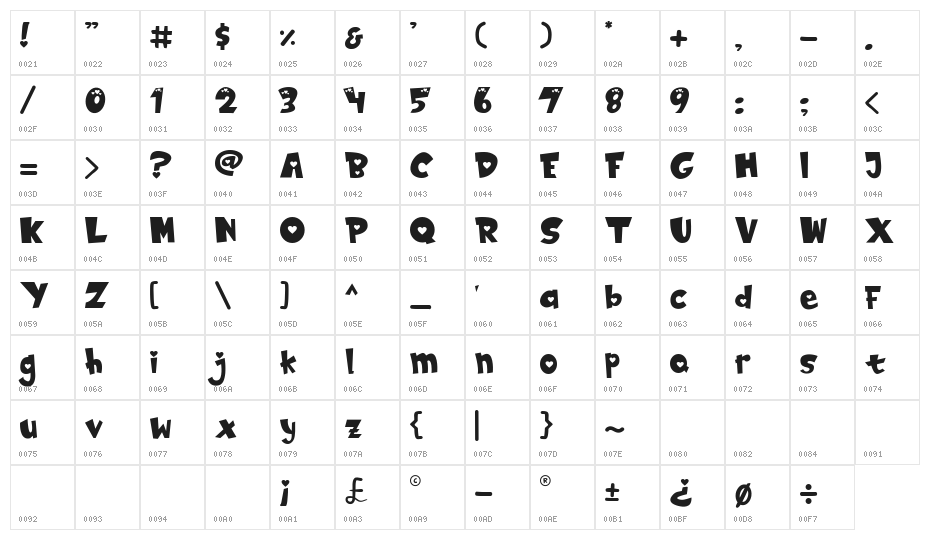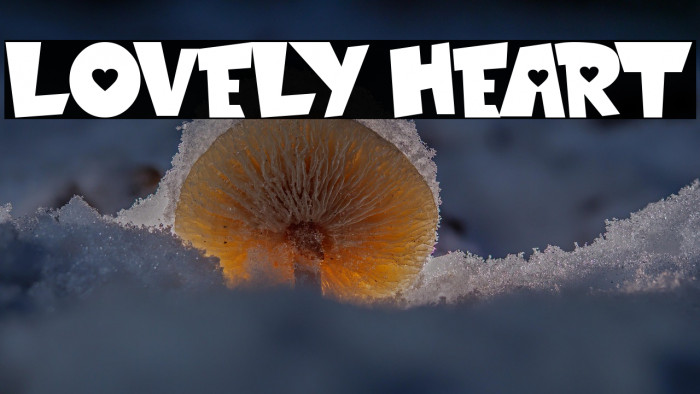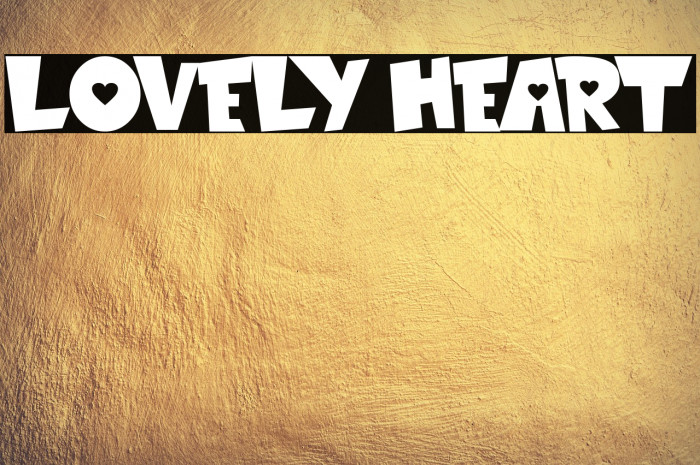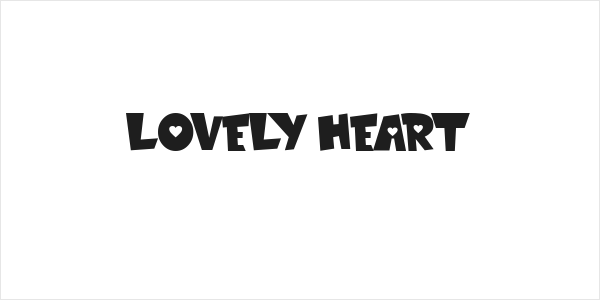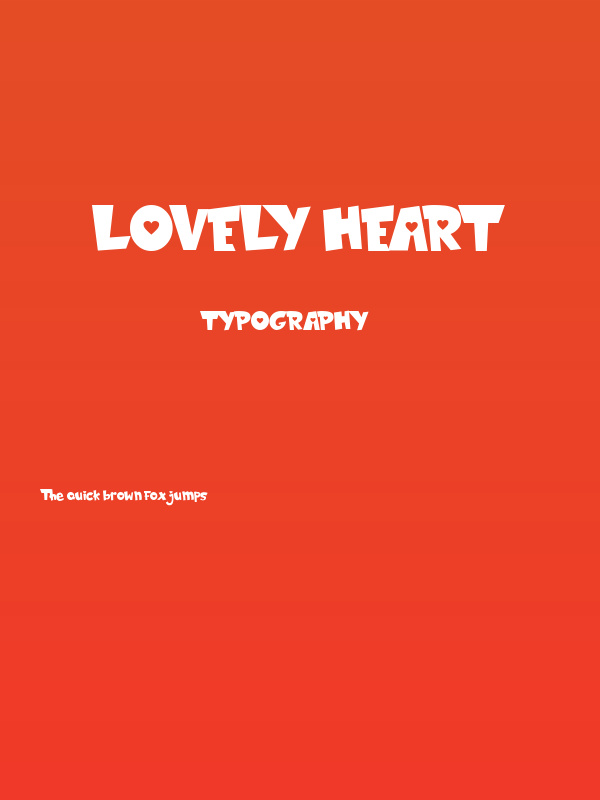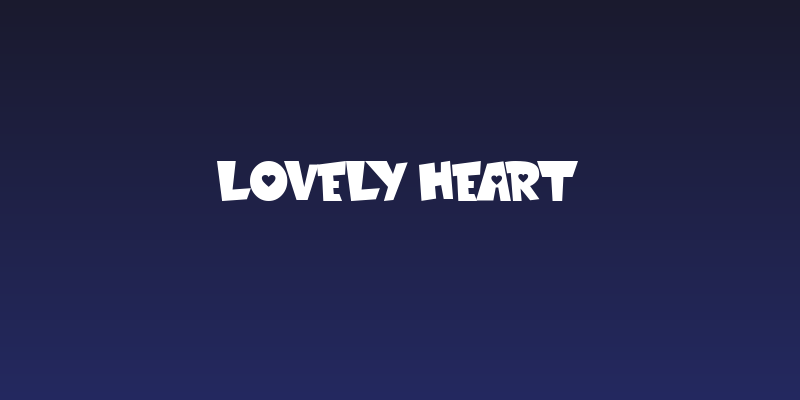
LOVELY HEART Font
LOVELY HEART Description
This playful and whimsical font features bold, chunky letters with unique heart-shaped cutouts in some characters, adding a touch of charm and romance. The uppercase and lowercase letters maintain a consistent, slightly irregular shape that enhances its quirky appeal. The numbers and special characters follow the same design ethos, making it a cohesive choice for creative projects. The font's thick strokes and lack of serifs give it a modern, friendly appearance, perfect for capturing attention and conveying a sense of fun and joy.
| Proposed Projects | Ideal for Valentine's Day cards, children's book covers, playful branding, and party invitations. |